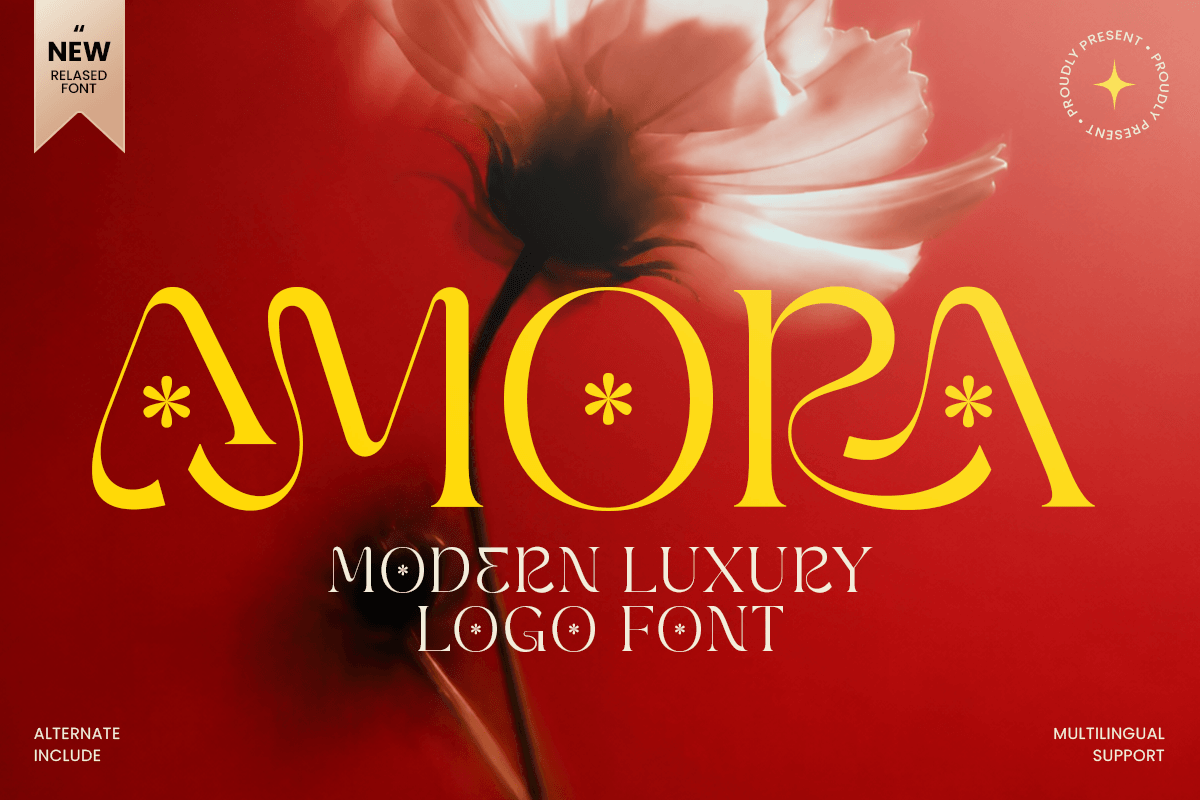
Amora
-Logo Serif FontAmora - Logo Serif Font
AMORA is a logo serif font designed with a sophisticated and timeless character. Featuring elegant serif details, balanced proportions, and a refined appearance, AMORA creates a premium aesthetic perfect for brands that seek a graceful and memorable identity.
Designed for luxury branding, logo design, packaging, editorial layouts, and high-end creative projects, AMORA brings a polished touch to fashion labels, beauty products, wedding stationery, boutique brands, and premium businesses. Its elegant letterforms create a strong visual presence while maintaining a clean and professional feel.
With its classic serif foundation and modern styling, AMORA is a versatile choice for designers looking to create impactful logos, headlines, posters, social media graphics, and print materials. This font blends sophistication and creativity to help your brand communicate confidence and elegance.
AMORA – Logo Serif Font Features
Elegant serif letterforms with premium branding appeal
Perfect for logos, luxury packaging, and editorial designs
Refined style for fashion, beauty, and wedding projects
Works beautifully for print and digital applications
OpenType features for creative typography flexibility
Ideal for headlines, posters, social media, and brand identity